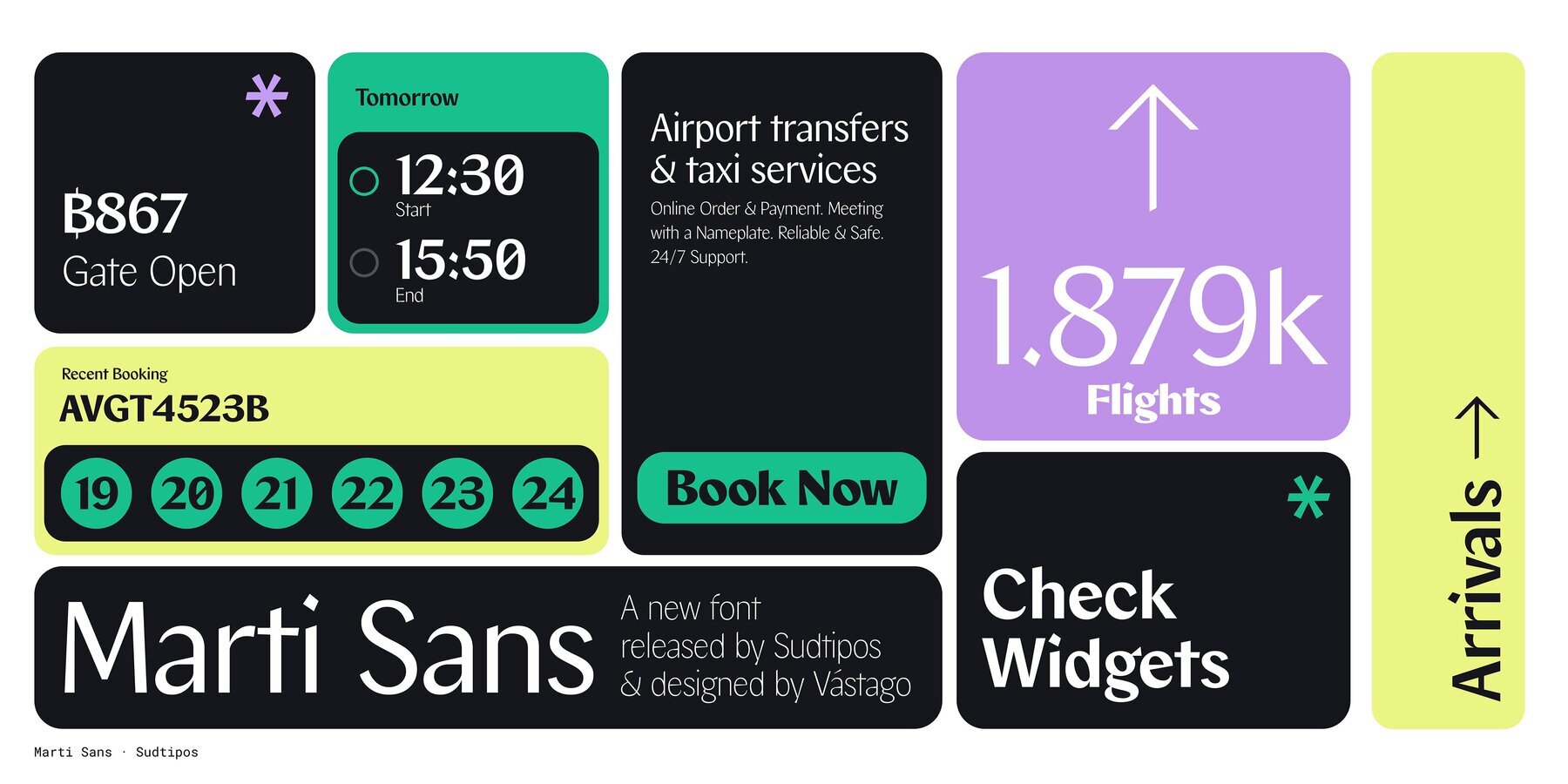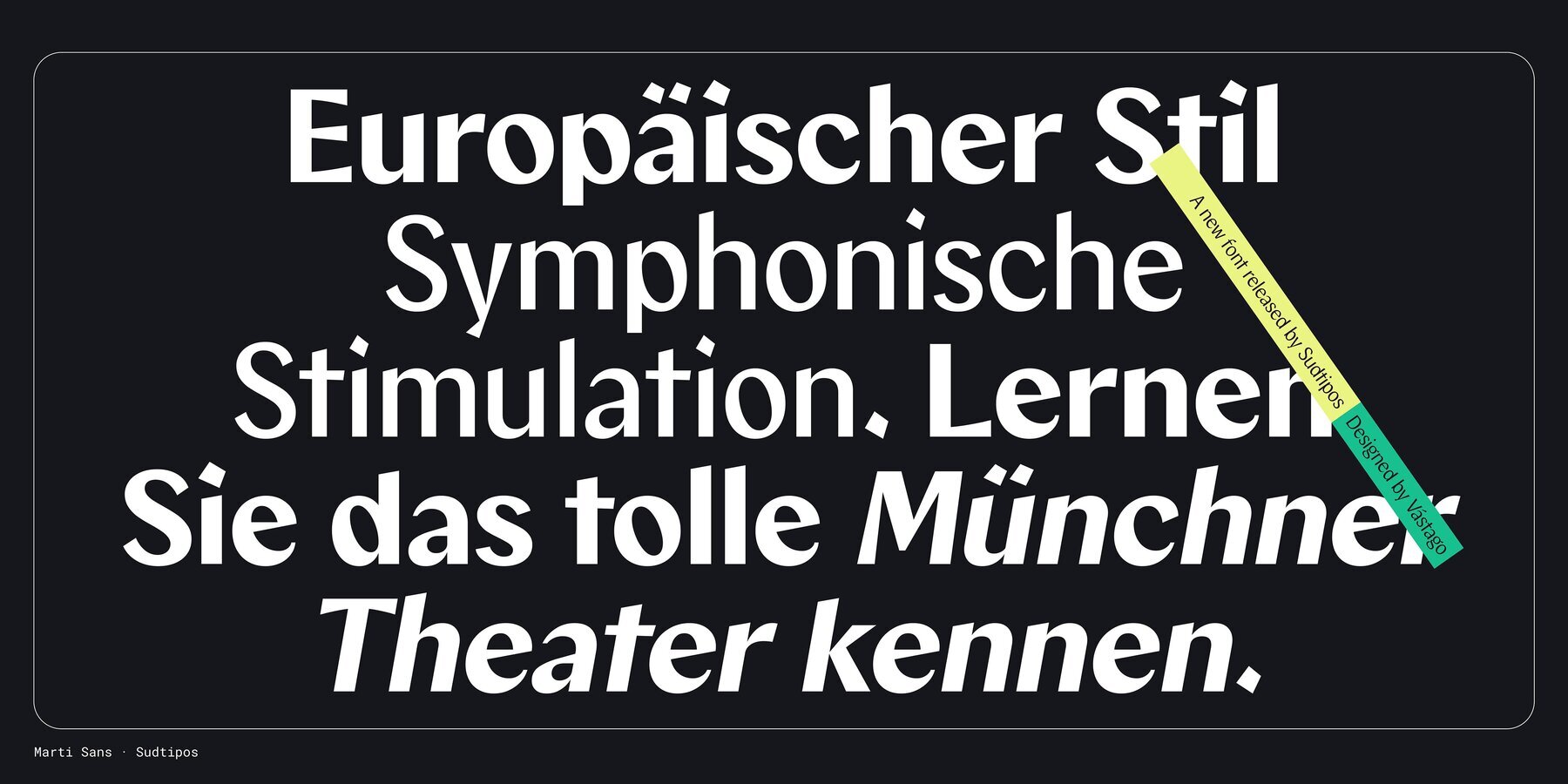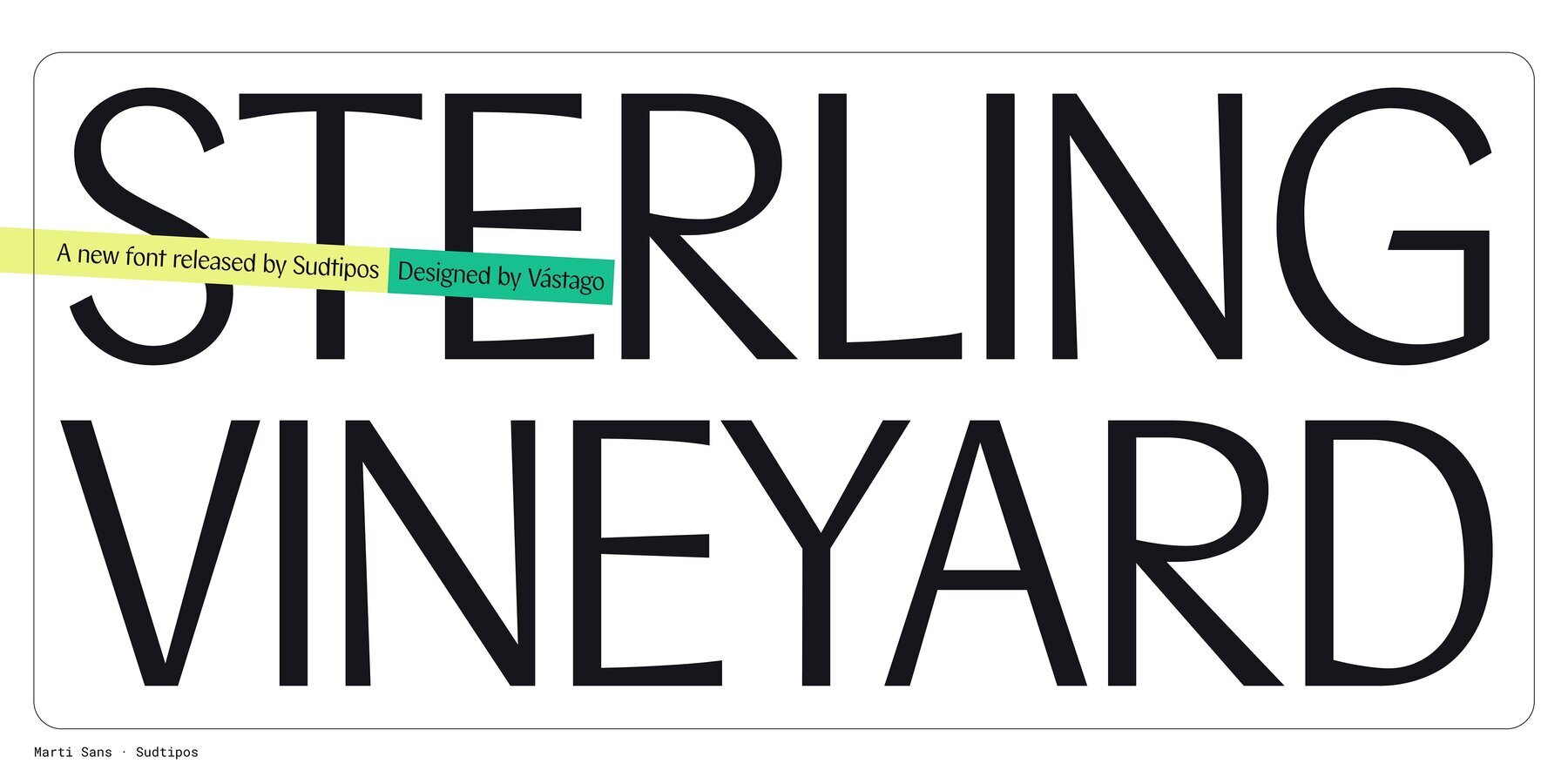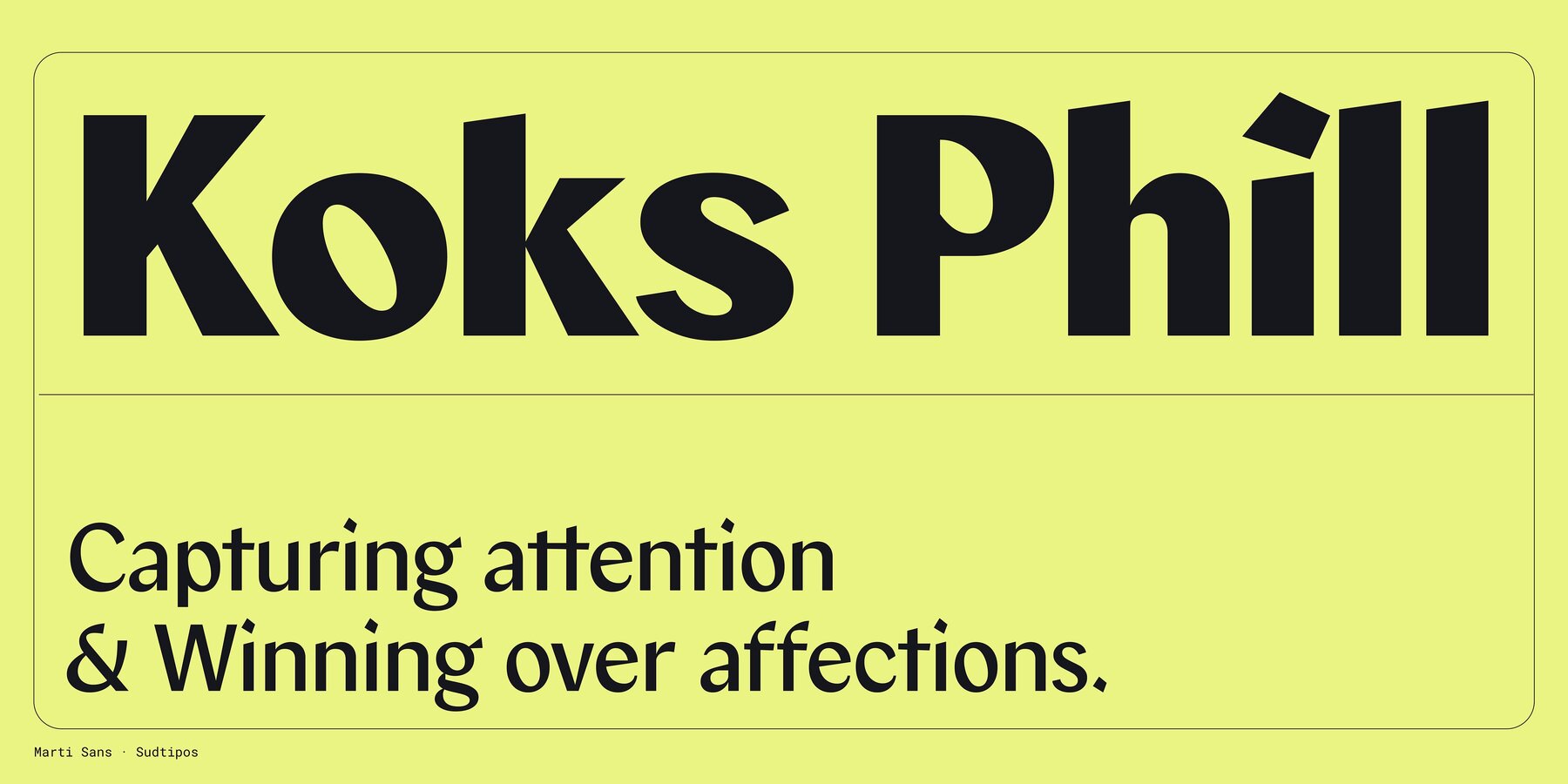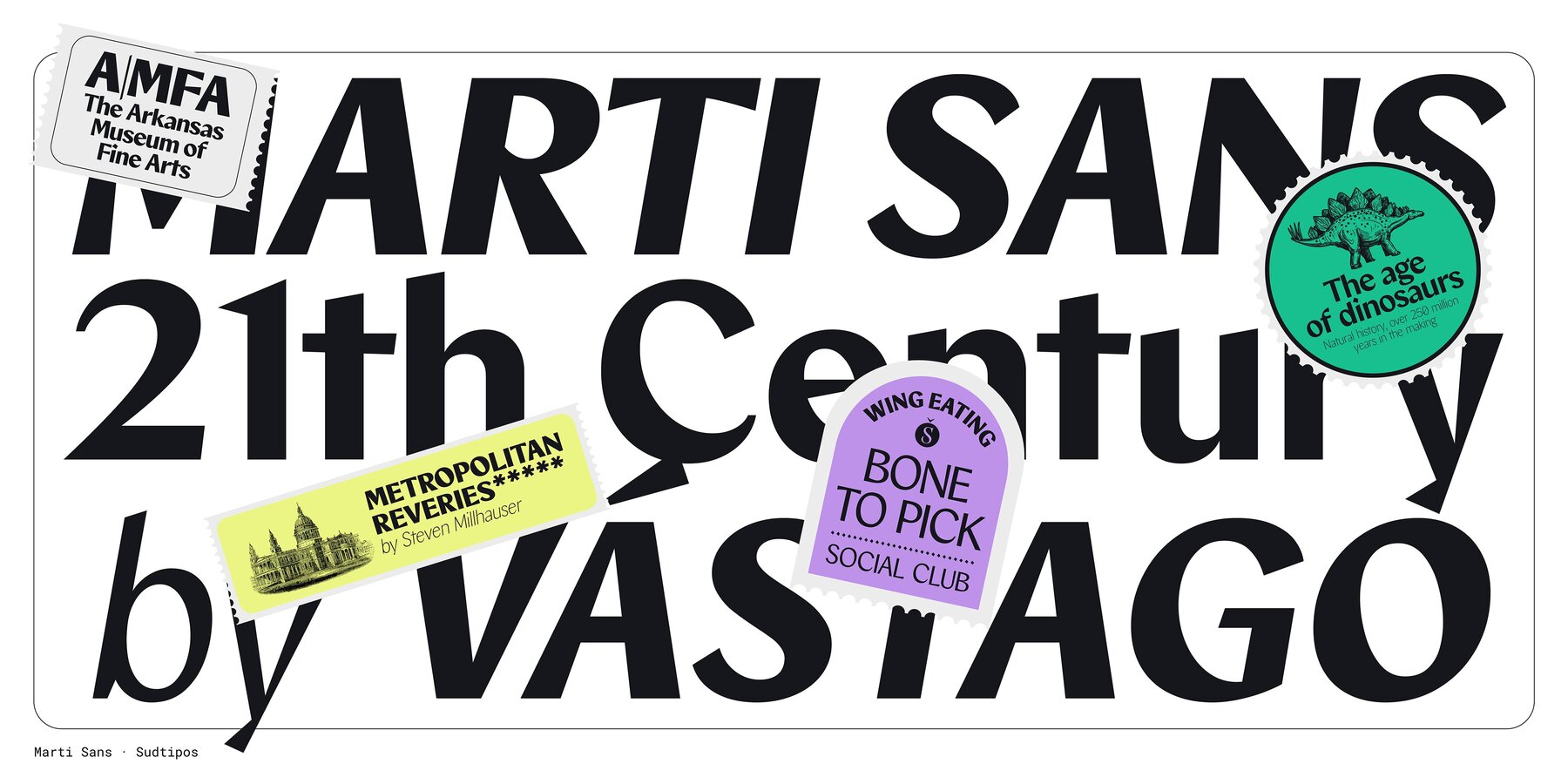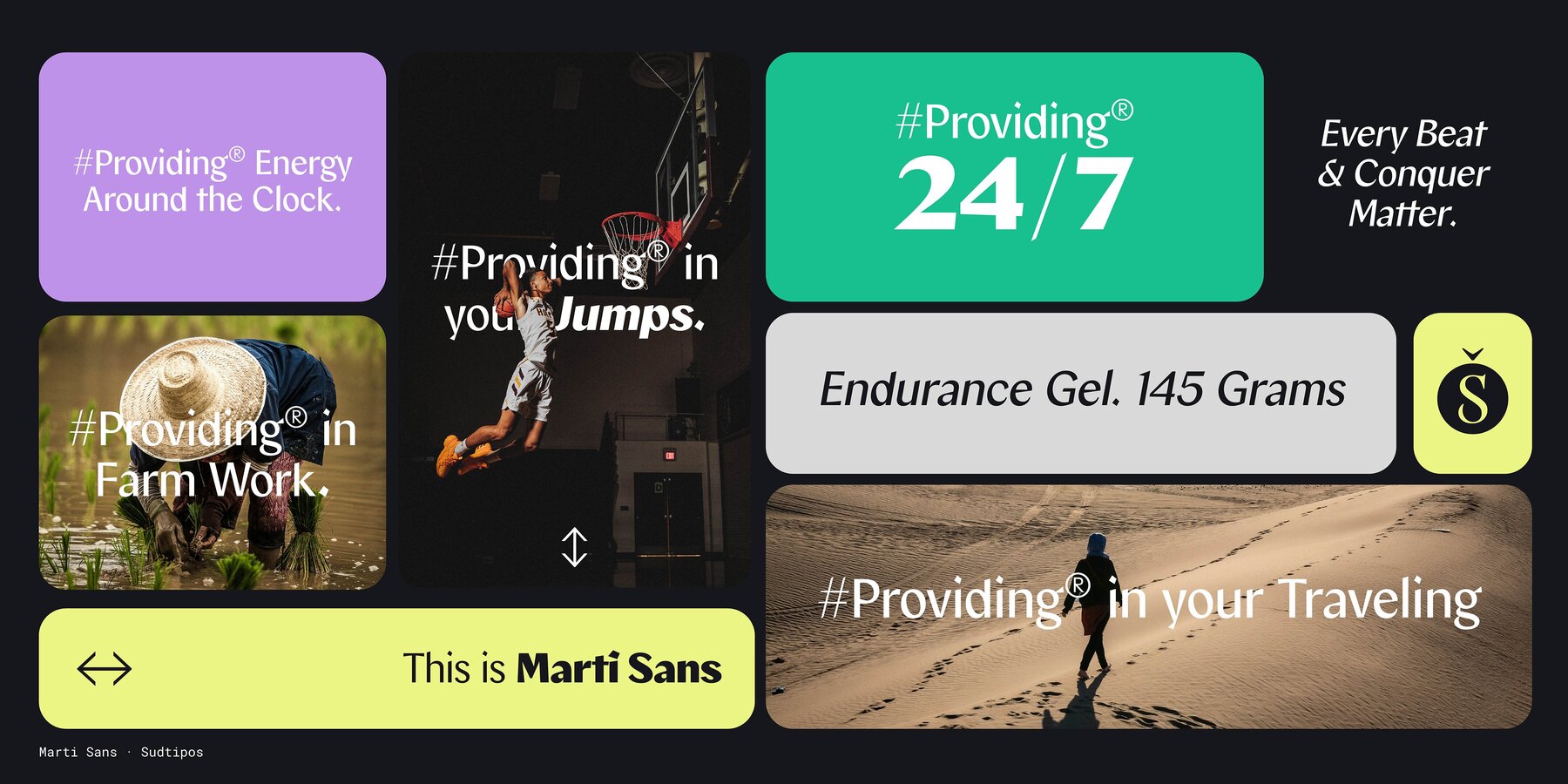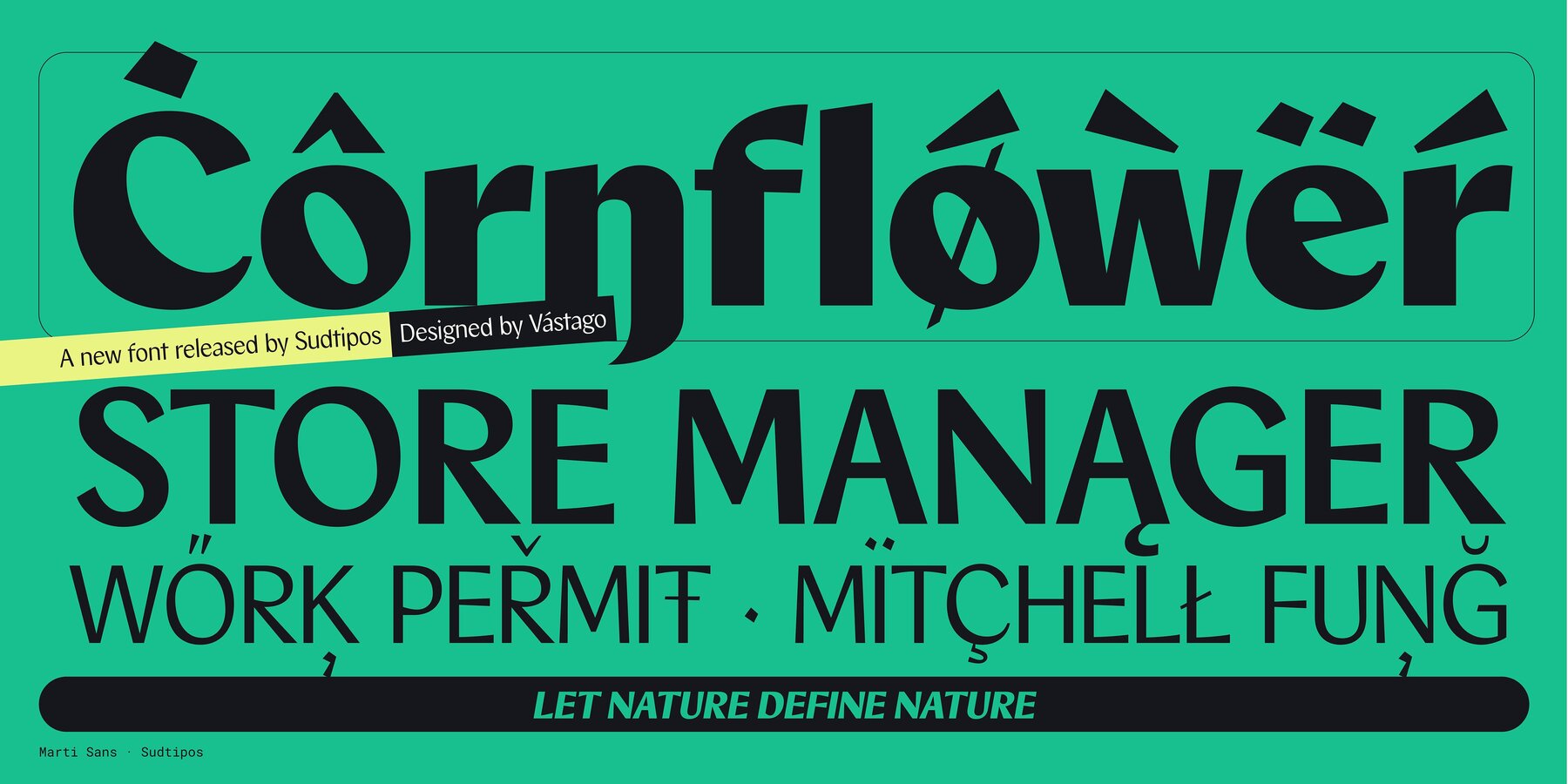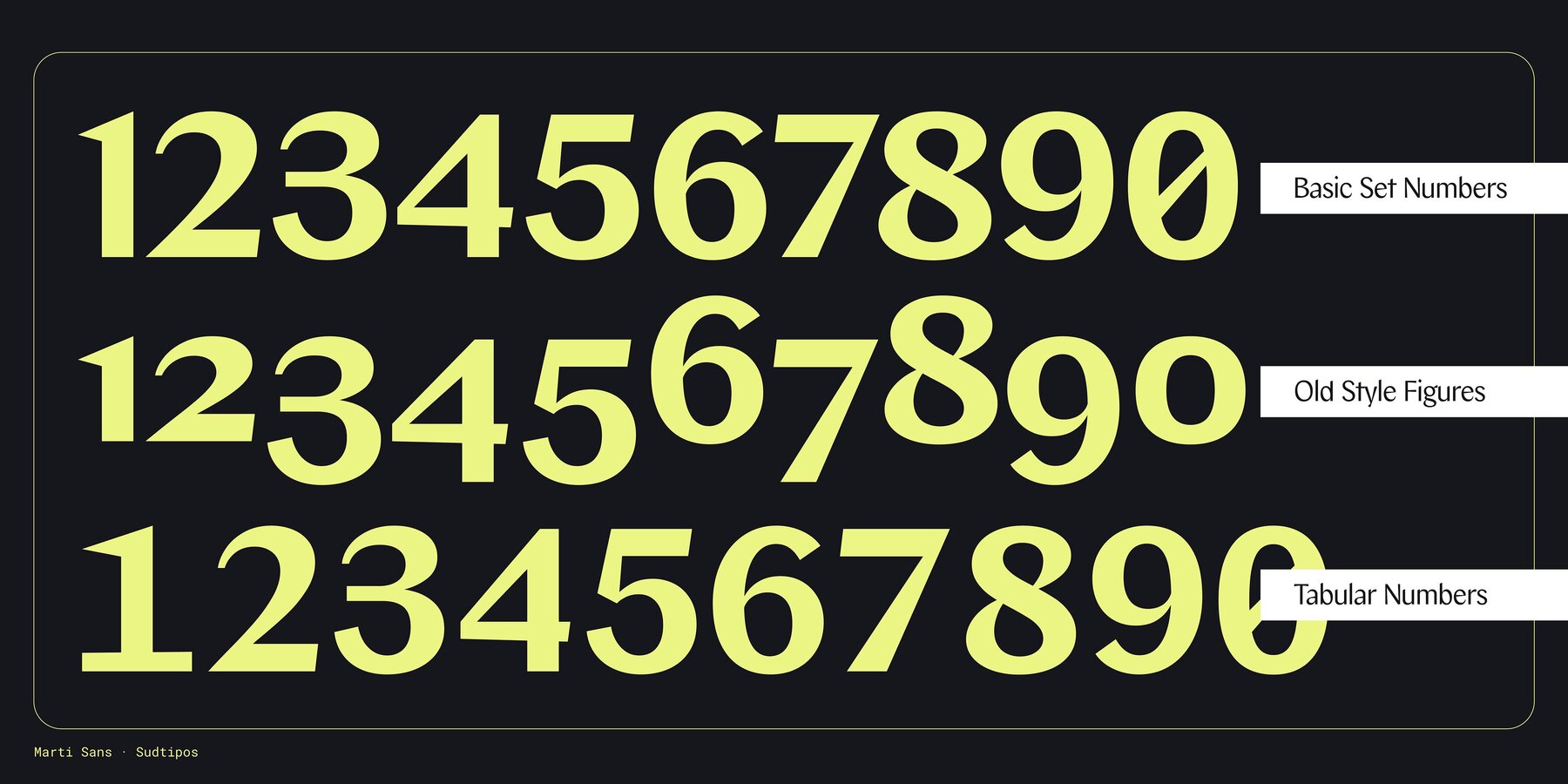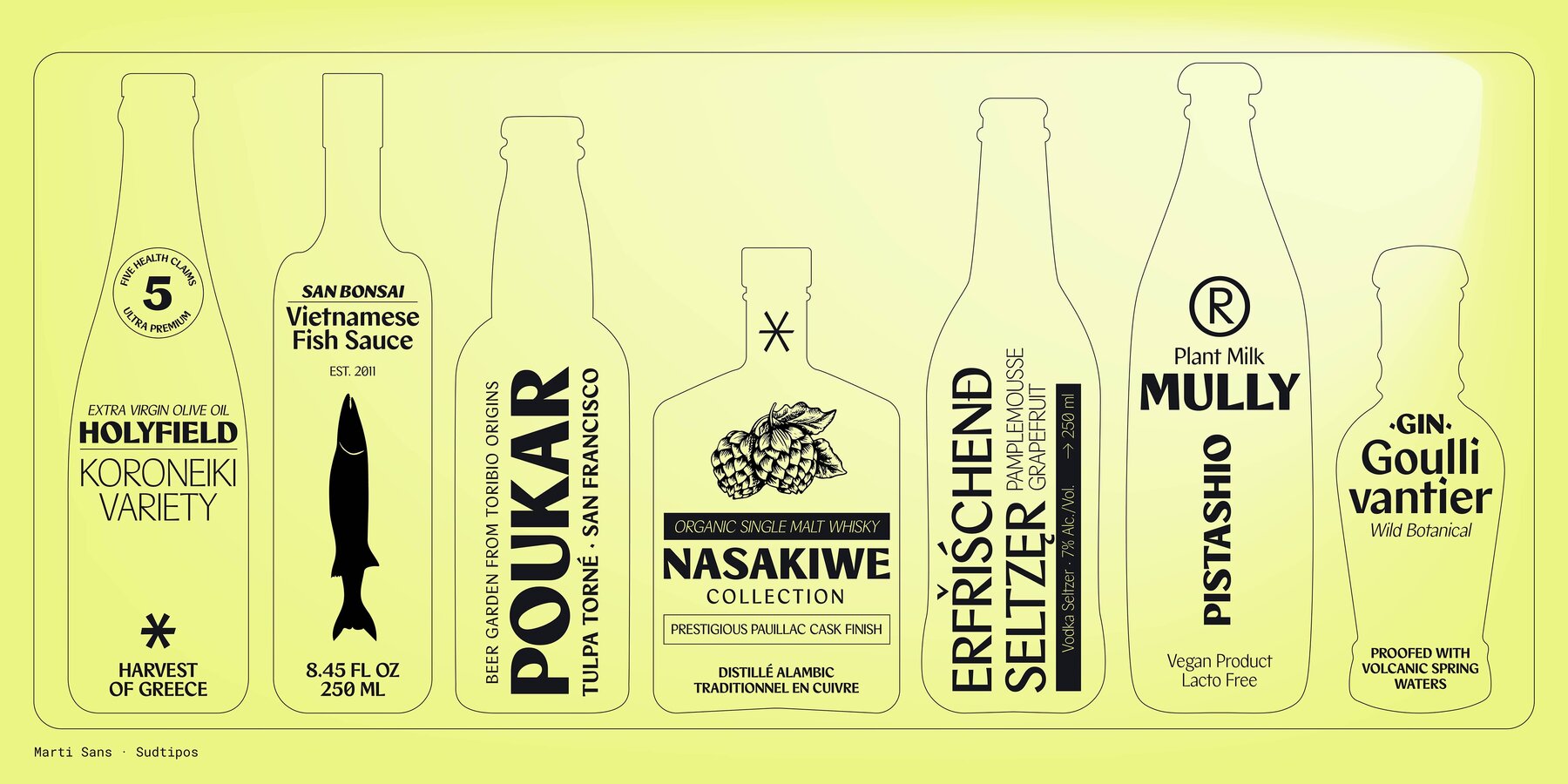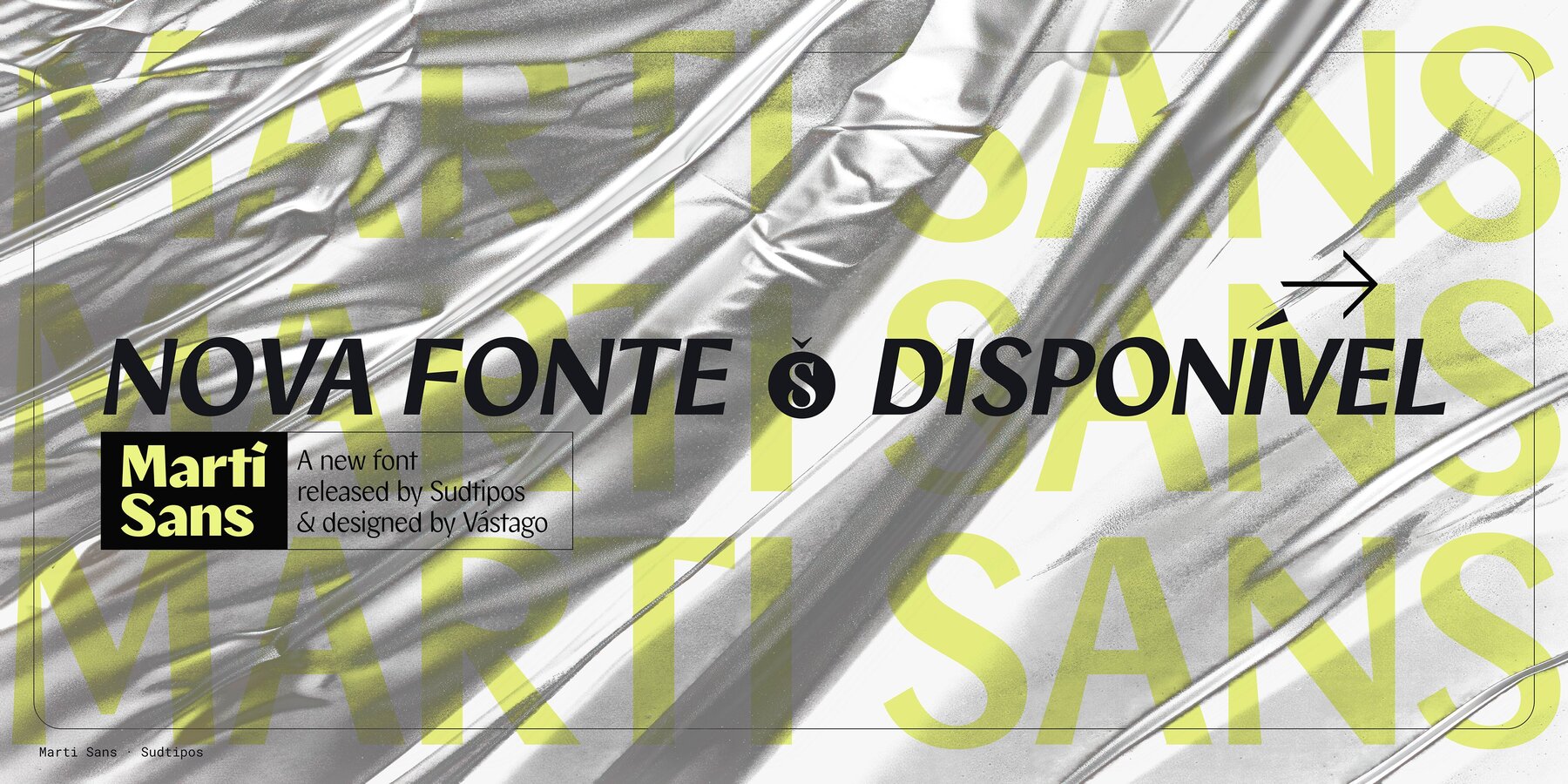
Marti Sans Font
We are thrilled to introduce "Marti Sans," designed and produced by Estudio Vástago and distributed by Sudtipos. This font represents a modern reinterpretation of classic sans-serif typefaces with contrast, enriched with robust touches reminiscent of authentic flat-nib calligraphic strokes. What truly sets Marti Sans apart is how it evolves across its various weights: while its heavier variants showcase the boldness of its slant and unique elements such as distorted dots, in the lighter weights, these details manifest more subtly, always retaining a refined elegance. This font achieves a perfect balance in its width, allowing for harmonious composition in both body text and headlines, aided by its reduced ascender height, which enhances readability and line spacing. Marti Sans is more than just a typeface; it's a design statement that we highly recommend for use in websites, branding, and UX/UI design. It offers a contemporary alternative that stands out for its distinct personality and style. Moreover, it has been meticulously crafted to be versatile, straightforward, and of high quality, ensuring that each creation feels unique and appealing. Marti Sans is also available in a variable font format, offering even more flexibility and creative possibilities for designers. We hope you enjoy using Marti Sans and find it to be a source of inspiration for your design projects.